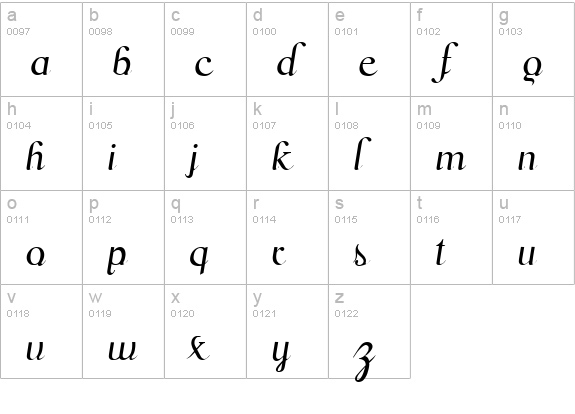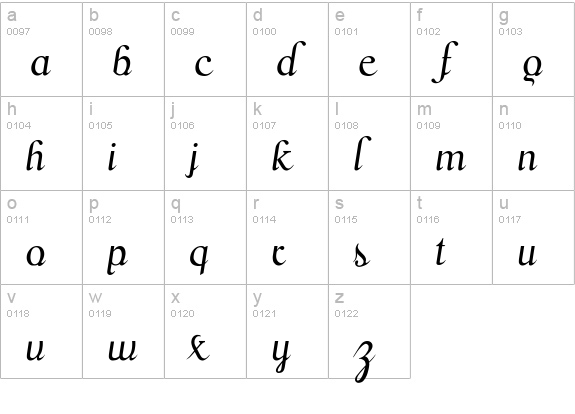
Scrypticali Italic Font Details
Scrypticali Italic is a distinctive, italic variant in the Scrypticali typeface family \xE2\x80\x94 well suited to design and typography projects.
Scrypticali Italic font is a stunning typeface that adds a touch of elegance and sophistication to any design project. With its sleek and modern design, Scrypticali Italic is perfect for creating eye-catching headlines, stylish logos, and captivating advertisements. This font features beautifully curved letterforms with a subtle italic slant, adding a sense of movement and fluidity to your text. The delicate and graceful strokes give Scrypticali Italic a sophisticated and refined feel, making it a great choice for luxury branding, high-end packaging, and editorial design. One of the best parts about Scrypticali Italic font is that it is available for free! Yes, you heard that right – this amazing font can be downloaded without any cost. You can easily access and download Scrypticali Italic font at FontsMarket.com, a reliable and trusted source for all your font needs. Whether you're a professional designer or a DIY enthusiast, Scrypticali Italic font will elevate your projects to the next level. Its versatility allows it to be used in a wide range of design applications, from print to digital, ensuring that your message stands out and leaves a lasting impression on your audience. So why wait? Experience the beauty and versatility of Scrypticali Italic font today. Download it for free at FontsMarket.com and let your creativity soar.